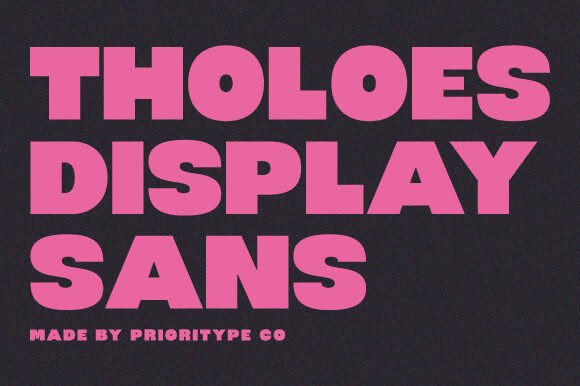
Journey into the world of expressive typography, where letters dance and commands attention. Introducing "Tholoes," a font that's not just a visual treat but an experience. Crafted to elevate your designs to new heights, "Tholoes" radiates confidence on every platform. Whether it's posters that scream individuality, branding that leaves a lasting imprint, logos that demand recognition, or social media posts that spark engagement, "Tholoes" is your artistic ally.
Dive into a world of limitless expression, where every character carries the weight of your imagination. Bask in the glory of "Tholoes," a font that's more than just a collection of letters - it's a catalyst for creativity, an accelerant for your artistic vision. Let your designs take center stage, bask in the spotlight of attention, and forge an indelible mark on the world. "Tholoes" isn't just a font; it's a declaration of your artistic prowess, a statement that resonates with elegance and audacity.
Embrace the boldness, harness the dynamism, and unleash the captivating power of "Tholoes." Let your designs ignite emotions, fuel connections, and inspire imaginations. "Tholoes" isn't a mere font; it's a gateway to a world where creativity flourishes and individuality shines. So, dive in, explore the depths of your imagination, and let "Tholoes" be your trusted companion on this artistic odyssey.